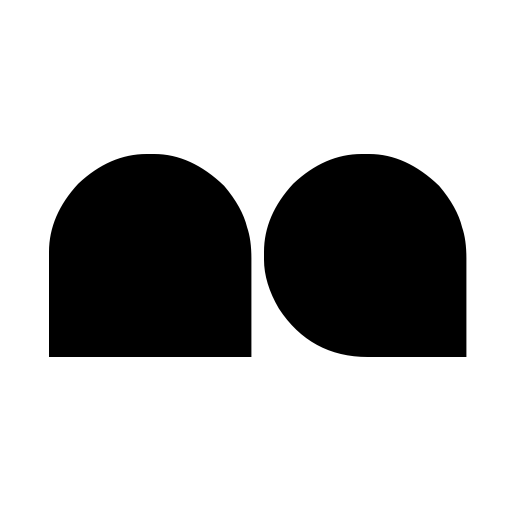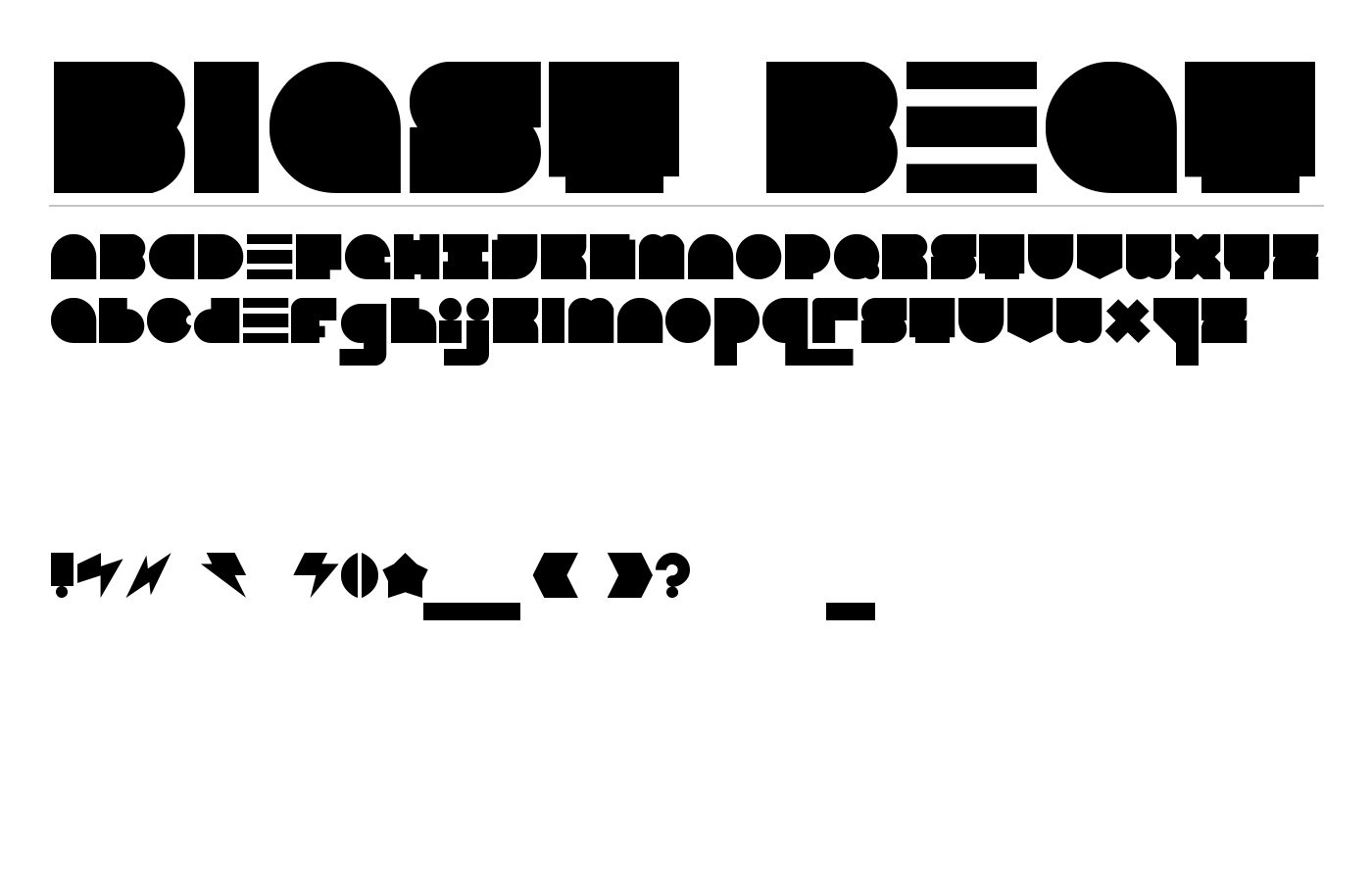
Blast Beat is a bold, geometric sans serif font with a heavy weight and strong, blocky letterforms that create a striking and modern presence. Its solid shapes and minimal curves give it an edgy, industrial feel, making it perfect for display uses like logos, posters, and bold headlines where attention-grabbing impact is needed. This font works well for creative branding and design that demands a powerful, contemporary style.
Blast Beat Font
About Blast Beat Font